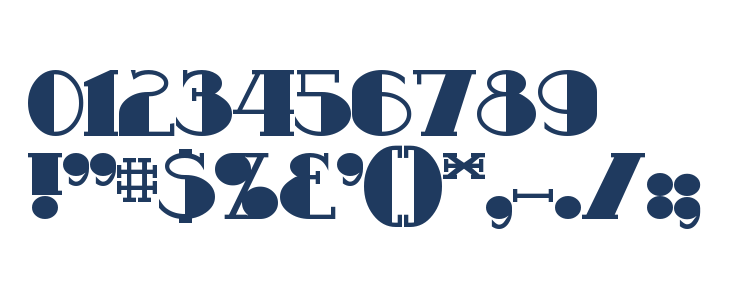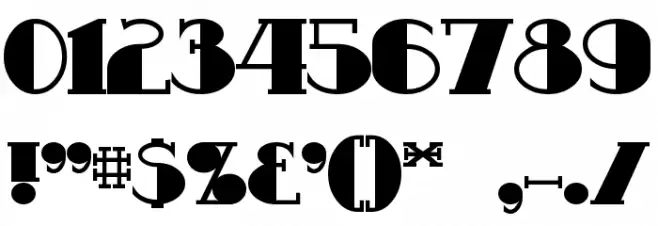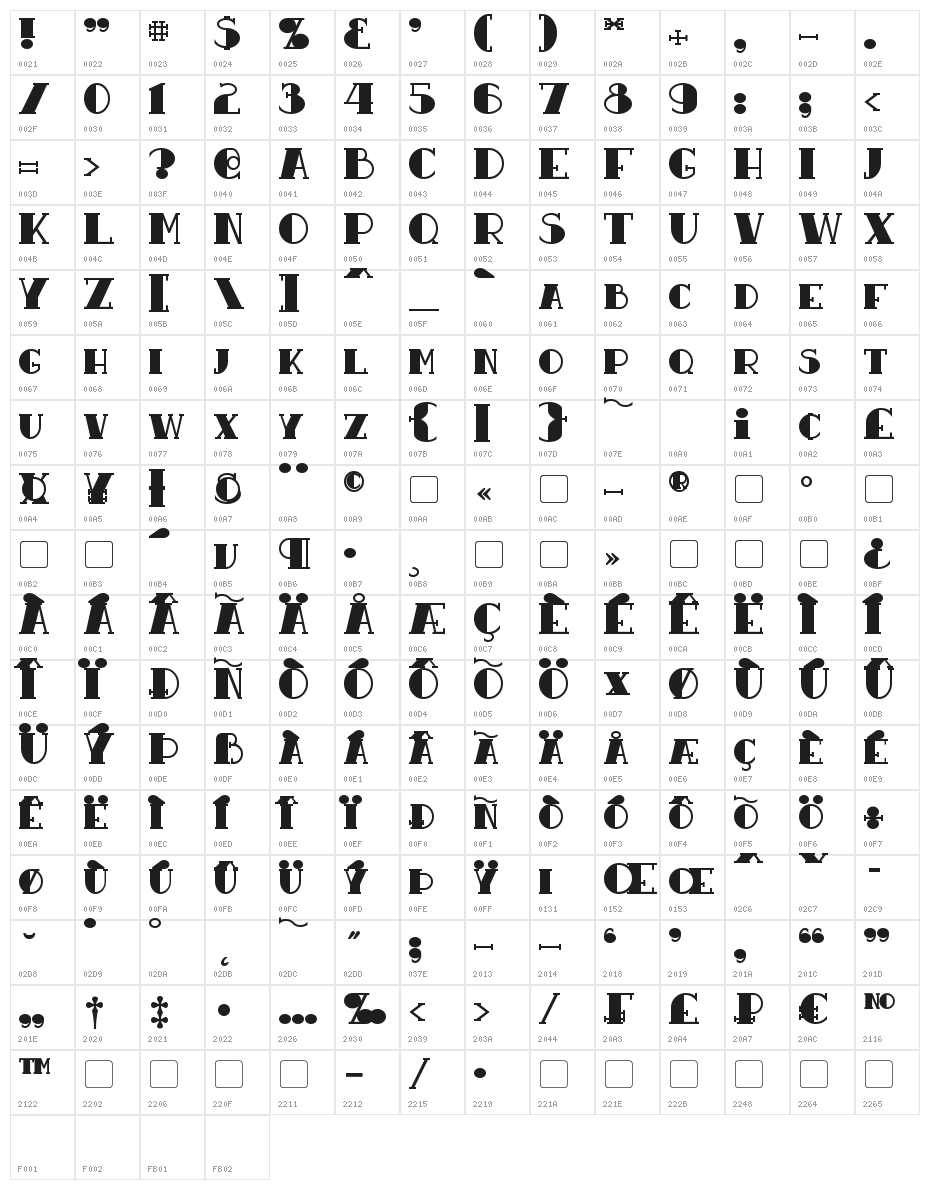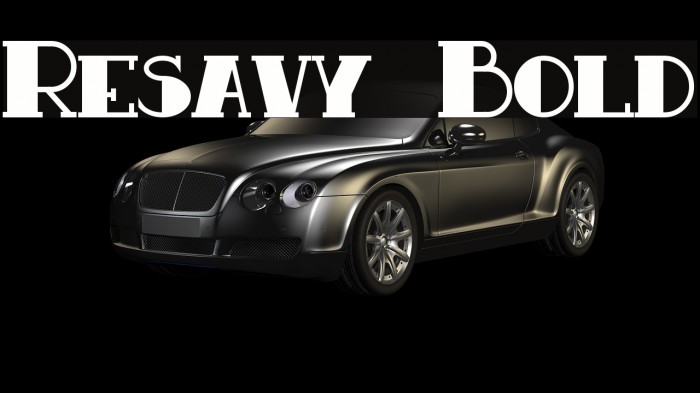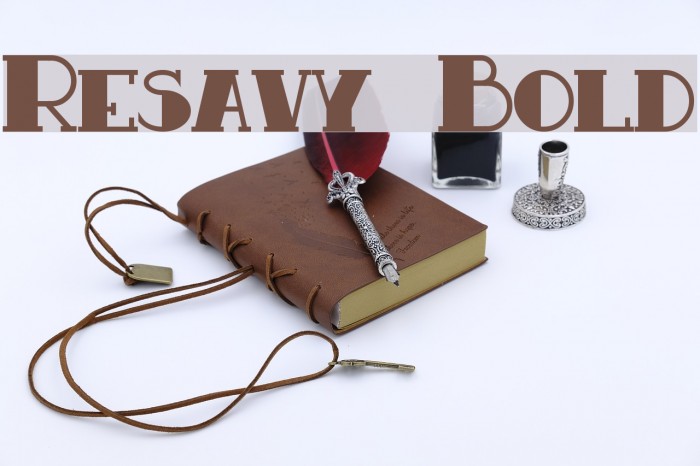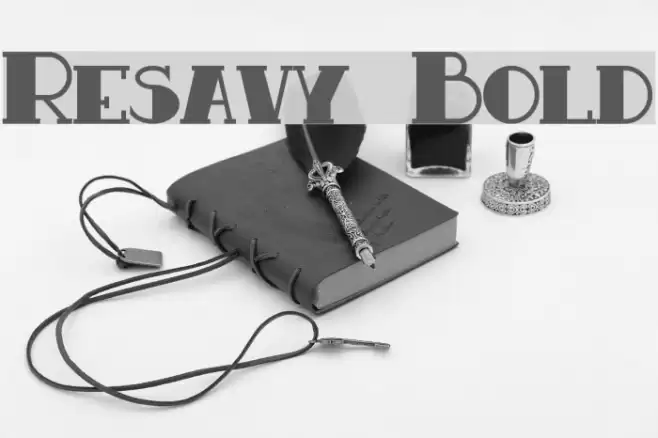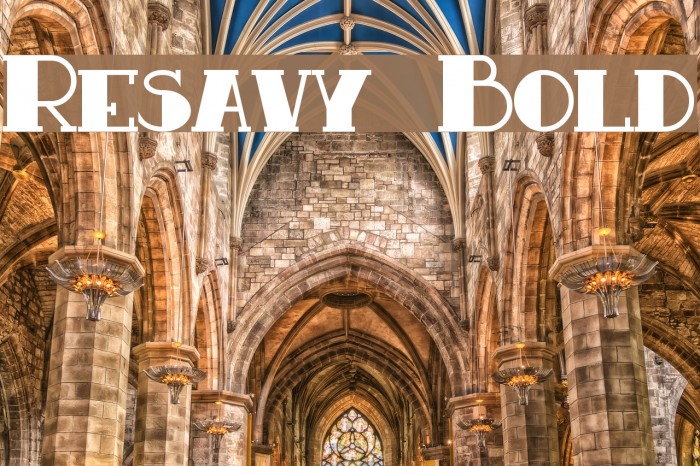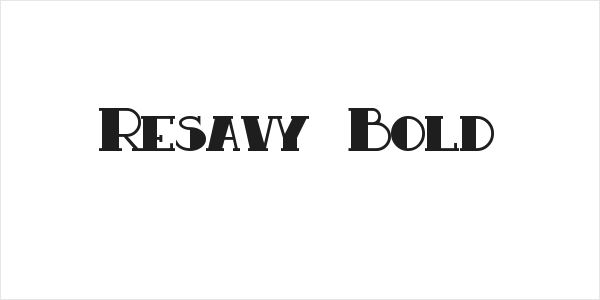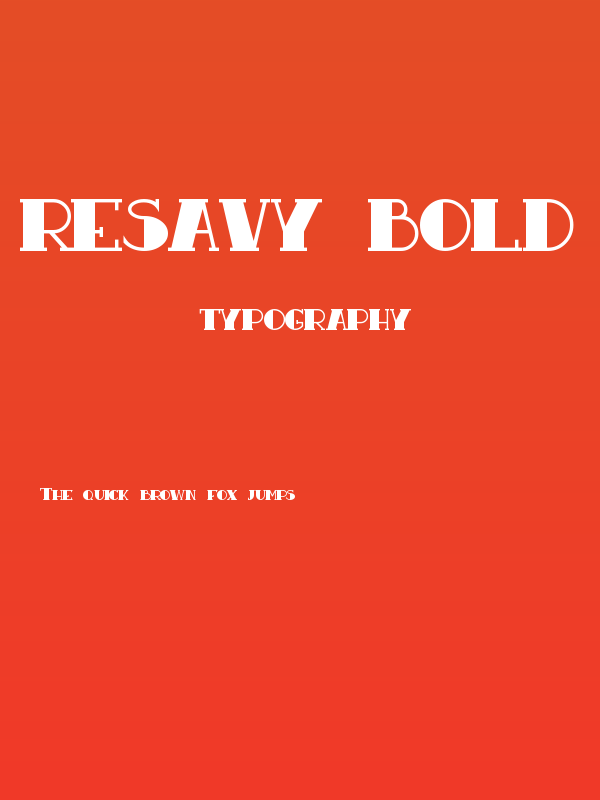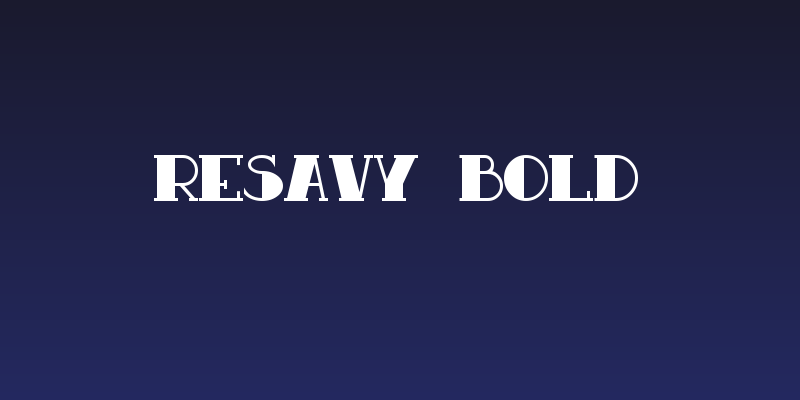
Resavy Bold Font
Resavy Bold Description
This font features a bold and striking design with a modern twist. The characters are crafted with a high contrast between thick and thin strokes, giving them a dynamic and eye-catching appearance. The geometric shapes and sharp angles contribute to its contemporary style, making it suitable for various creative projects. The uppercase letters are particularly prominent, with a unique blend of curves and straight lines that add to its distinctive look. The numbers and special characters maintain the same boldness, ensuring consistency throughout the font.
| Proposed Projects | Ideal for branding, posters, headlines, and any project requiring a strong visual impact. |